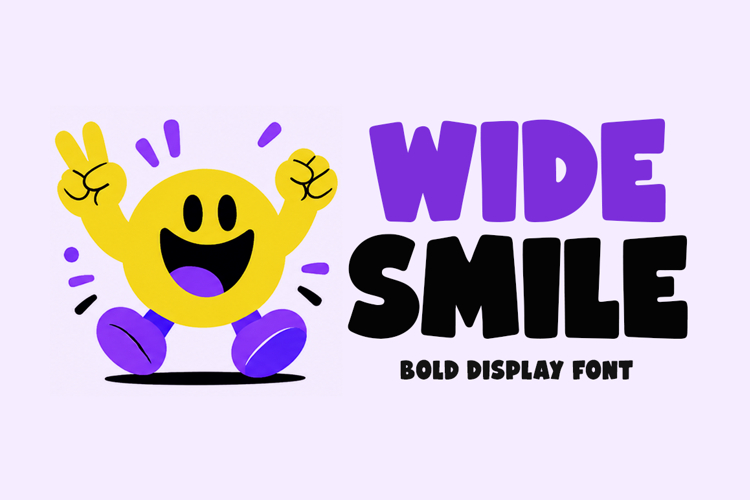
Introducing Wide Smile!
Wide Smile is a bold, funky display font bursting with cheerful energy and playful personality. Its thick curves, expressive shapes, and smooth flow make every letter feel lively and eye-catching. Perfect for posters, kids' branding, summer themes, packaging, social media, t-shirts, stickers, logos, quotes, and creative headlines. Wide Smile brings a fun, happy, and vibrant touch to any design project with effortless readability and charm.